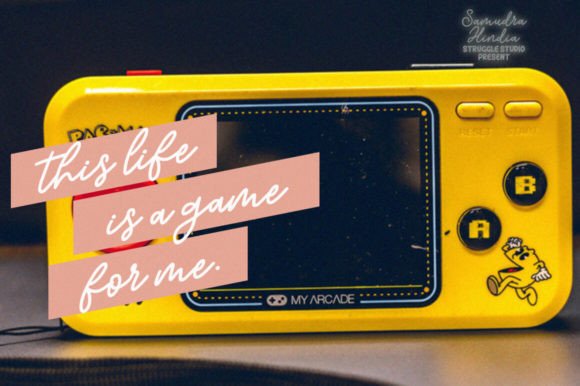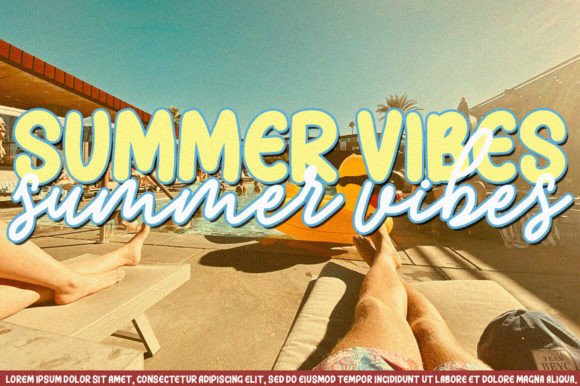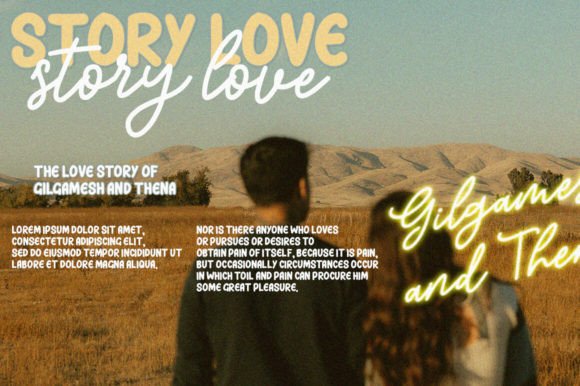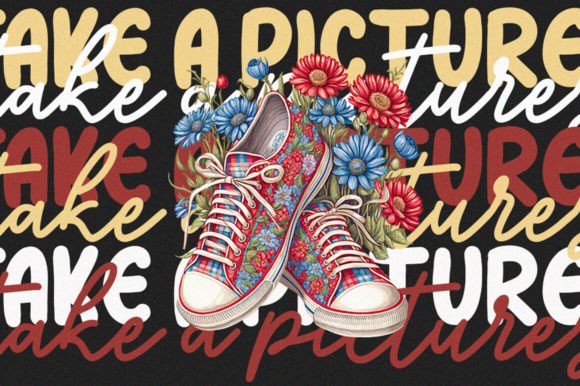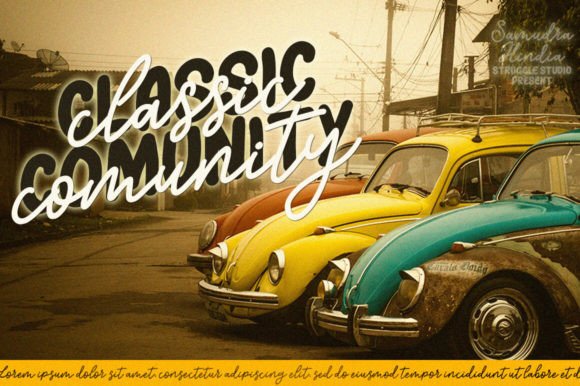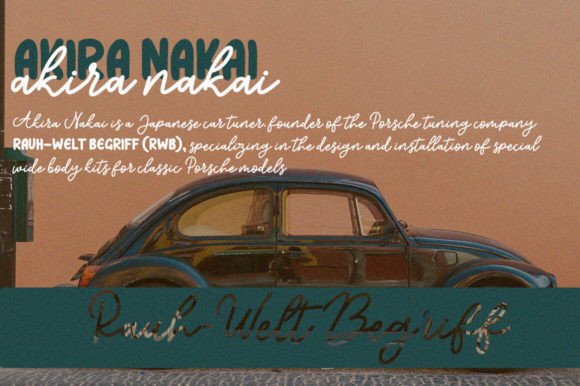
Introduction to Samudra Hindia Font
Imagine yourself standing on a serene beach at sunset, the warm golden light dancing across the waves as the sound of the ocean gently lulls you into a state of tranquility. It’s in these moments that we find inspiration, and for designers, it’s the perfect time to discover new design resources that can transport our creative projects to new heights. Today, we’re excited to introduce you to the enchanting Samudra Hindia Font – a harmonious Duo Font pairing that combines the elegance of Monoline with the invigorating presence of Display.
This beautiful font is not just a design element, but a statement piece that can elevate your creative project to new levels. Whether you’re working on a unique branding approach, crafting evocative titles, or designing bespoke stationery, Samudra Hindia Font is an excellent choice that will leave a lasting impression.
Key Features of Samudra Hindia Font
- Unique, Hand-Drawn Design: Samudra Hindia Font features a distinctive, hand-drawn style that adds a touch of creativity to any project.
- Size: The font family includes various weights and styles, providing designers with a range of options to suit their specific needs.
Honest Review: Samudra Hindia Font
As a designer, I’m always on the lookout for unique and high-quality design resources. The Samudra Hindia Font is one such find that has piqued my interest. Here’s my honest review.
- ✨ Unique design aesthetic that’s perfect for a creative project with an oceanic theme.
- ✨ High-quality font that’s crisp and clear, making it suitable for various applications.
However, I do have some concerns:
- ⚠️ Limited font styles and variations, which might not be ideal for designers who require a wide range of options.
- ⚠️ The font may not be suitable for professional or formal designs, as it has a more playful and casual vibe.
Overall, the Samudra Hindia Font is a solid design resource for designers who are looking for a unique and free download. While it has some limitations, it’s still a great addition to any designer’s toolkit. I’d recommend giving it a try for your next creative project.
Samudra Hindia Font is suitable for a variety of design projects, including business cards, posters, brochures, and social media graphics. Its high-quality design makes it an ideal choice for any creative project.